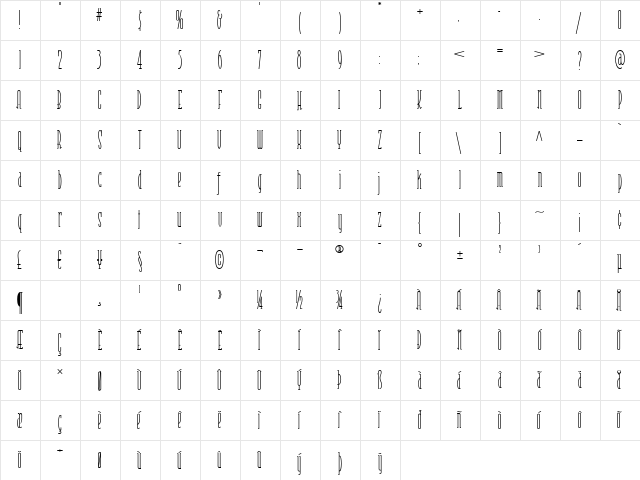
Risky Business Square NF ExtraLight Regular
Design Context for Risky Business Square NF ExtraLight Typeface
Risky Business Square NF ExtraLight is a composed and adaptable typeface that performs quietly and consistently across a wide range of design contexts. The delicate stroke weight brings airiness and refinement to layouts.